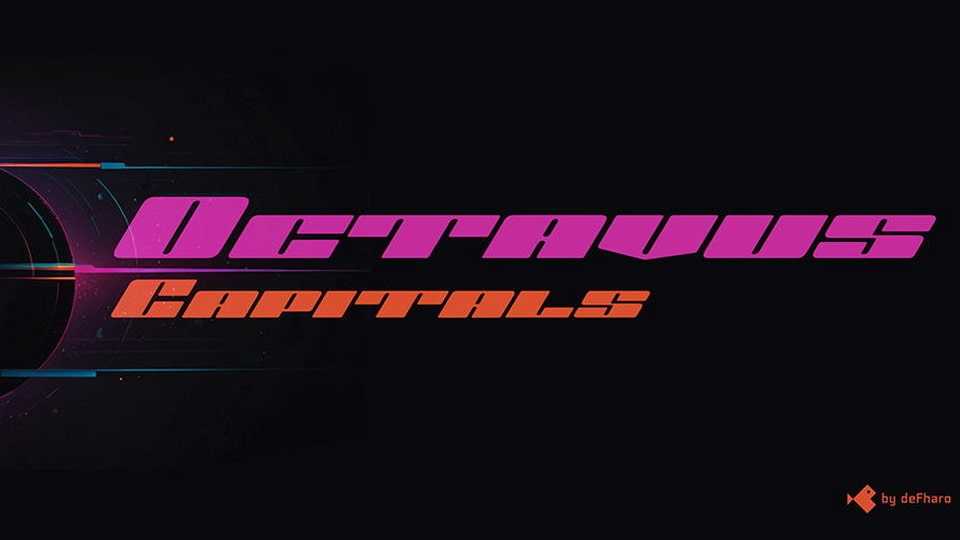
Download Octavus Caps font, a retro-futuristic, technological, ultra wide and slanted typeface, with a 32-degree slant that gives it an unmistakable dynamism and bold minimalism.
Designer: Fernando Haro